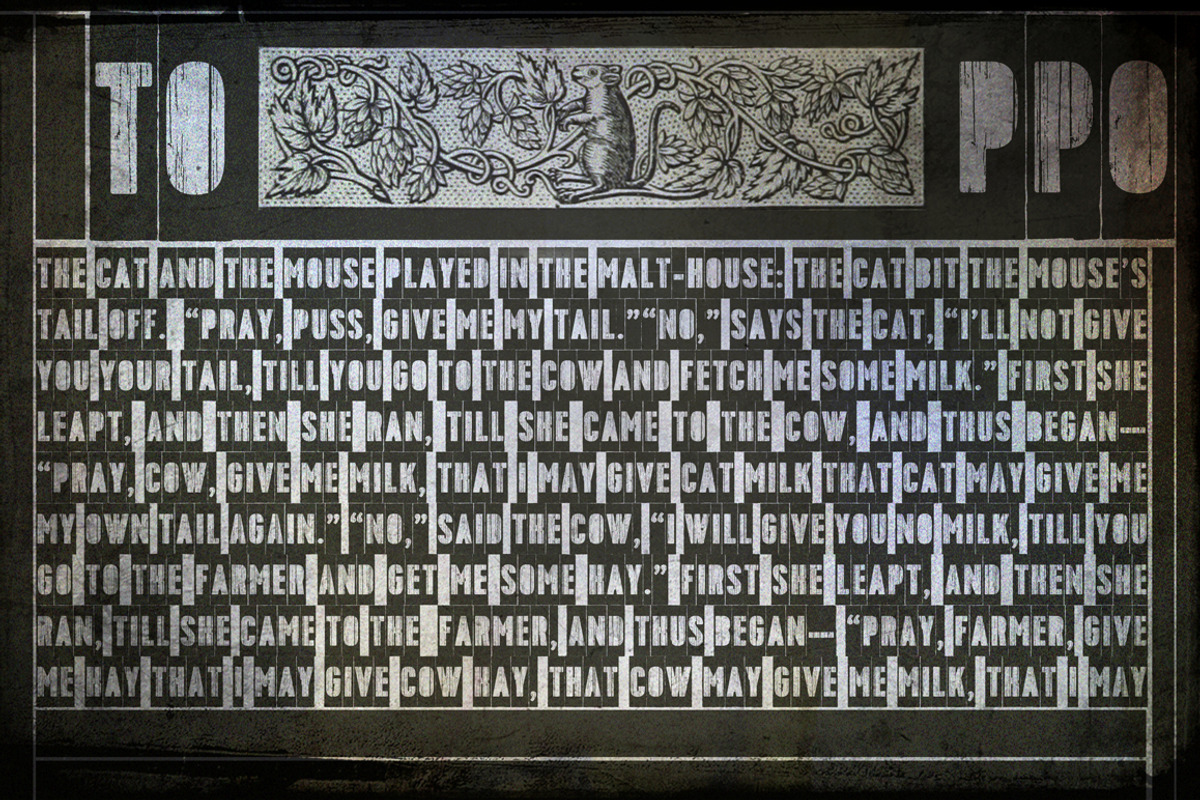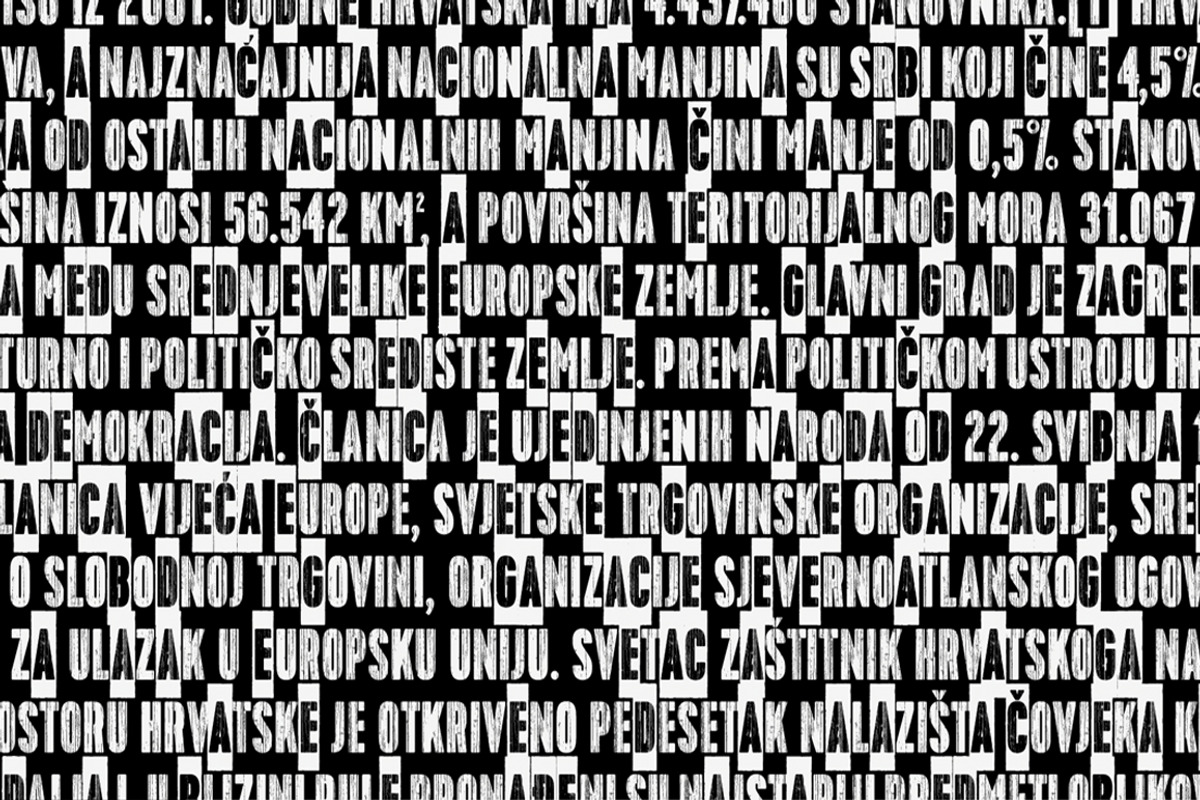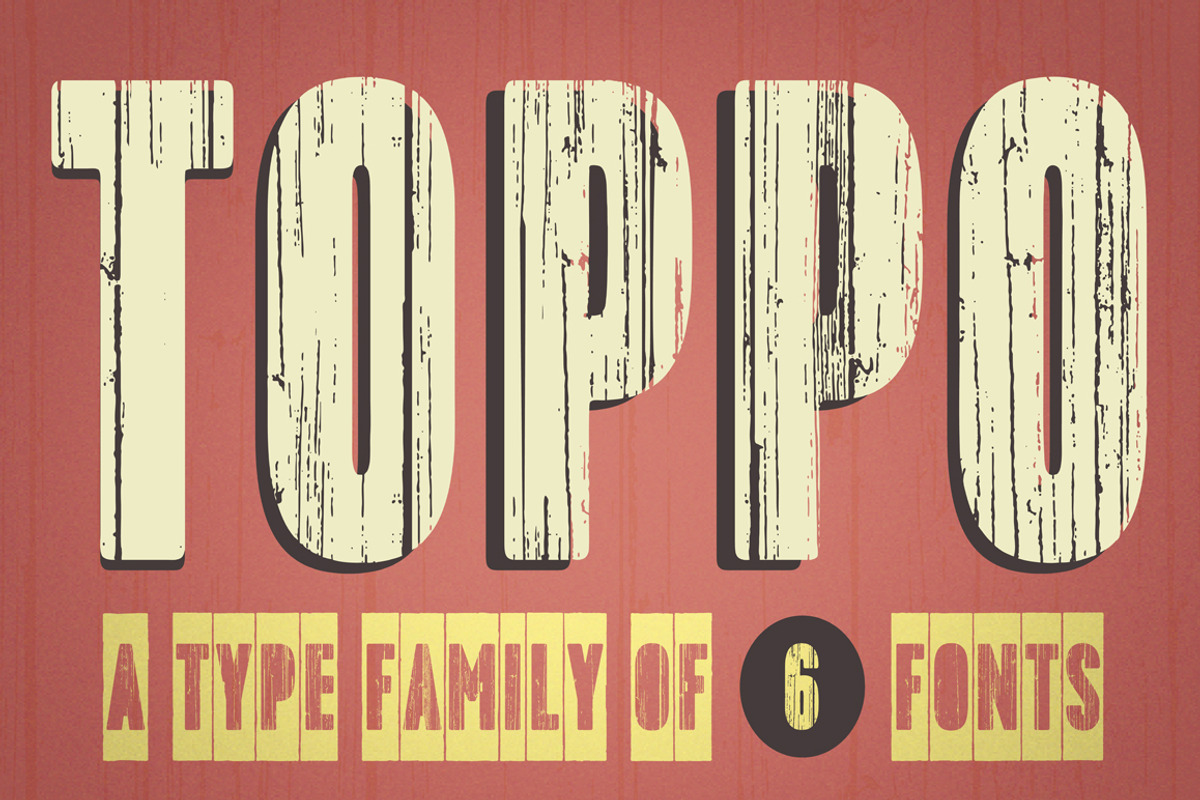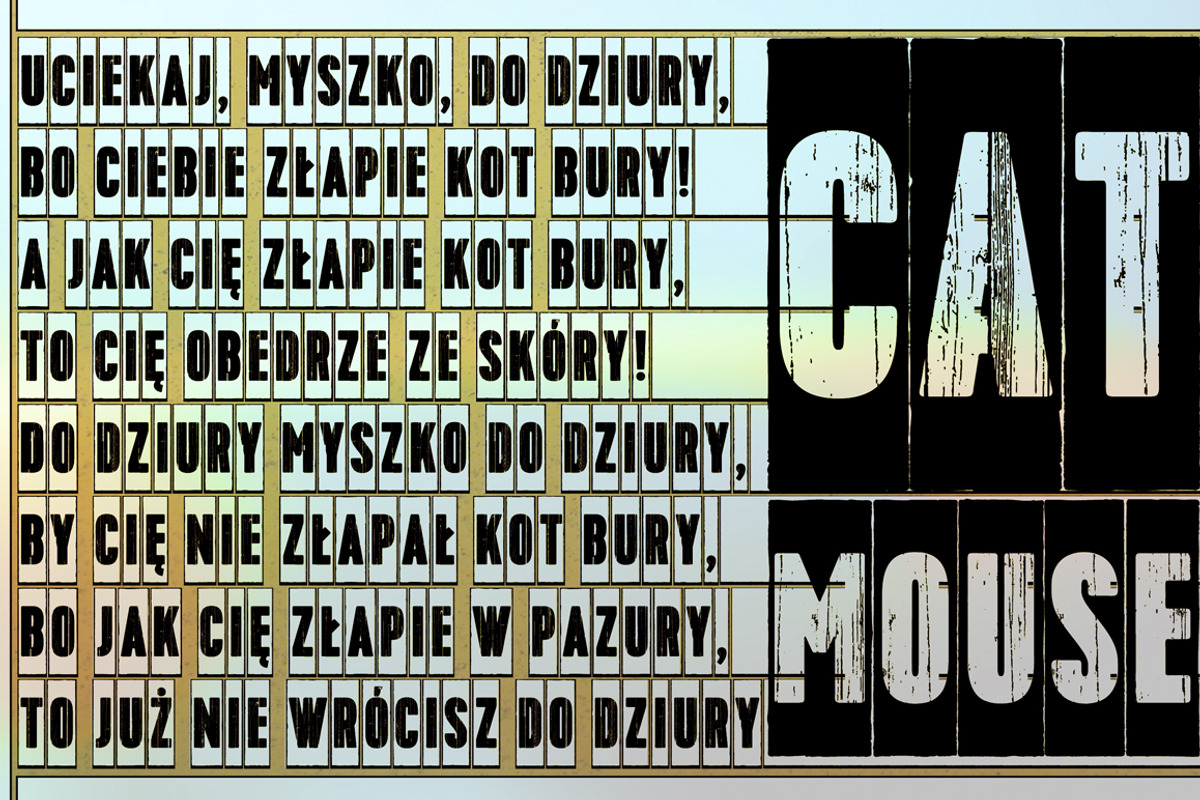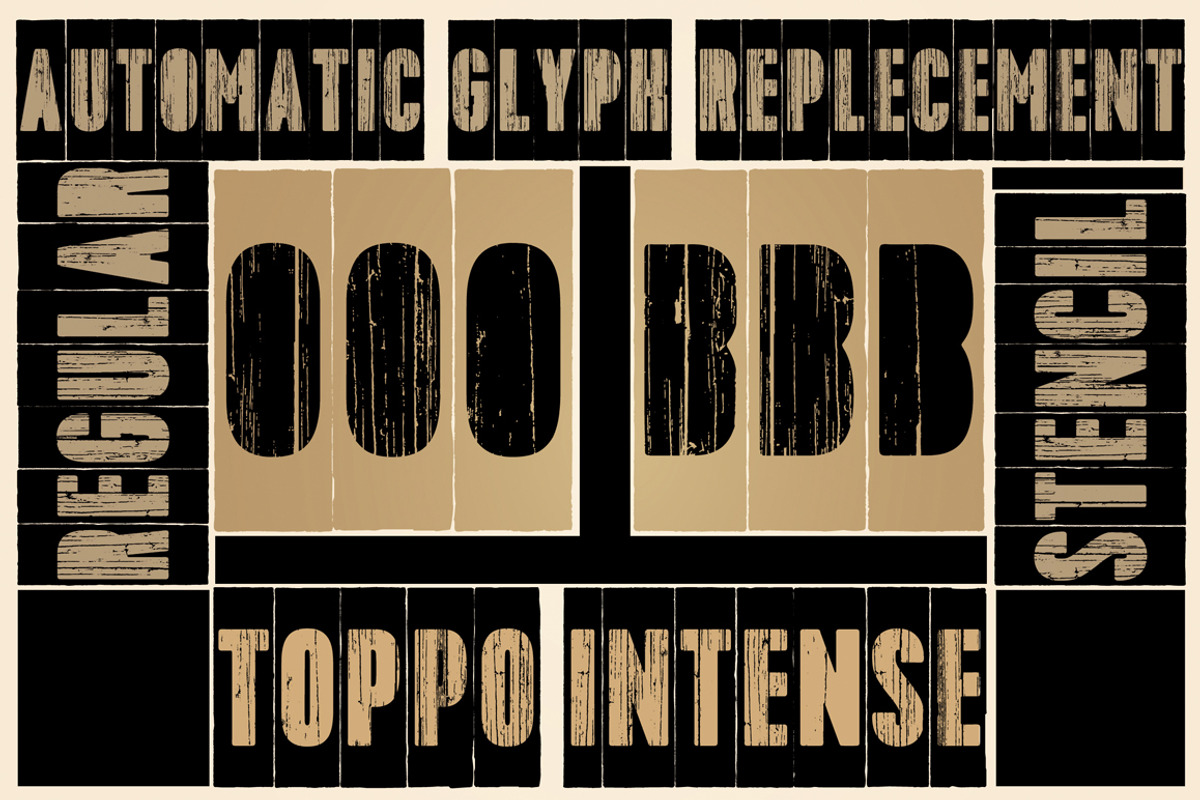
Toppo family fonts - 50% off by Blazej Ostoja Lniski is a font selected for branding, posters, packaging, typography.
- This family contains 6 different styles.
- In the Toppo family, every variety contains 3 alternative characters with automatic replacement.
Toppo family fonts - 50% off by Blazej Ostoja Lniski fits naturally into Branding, posters, packaging, typography.